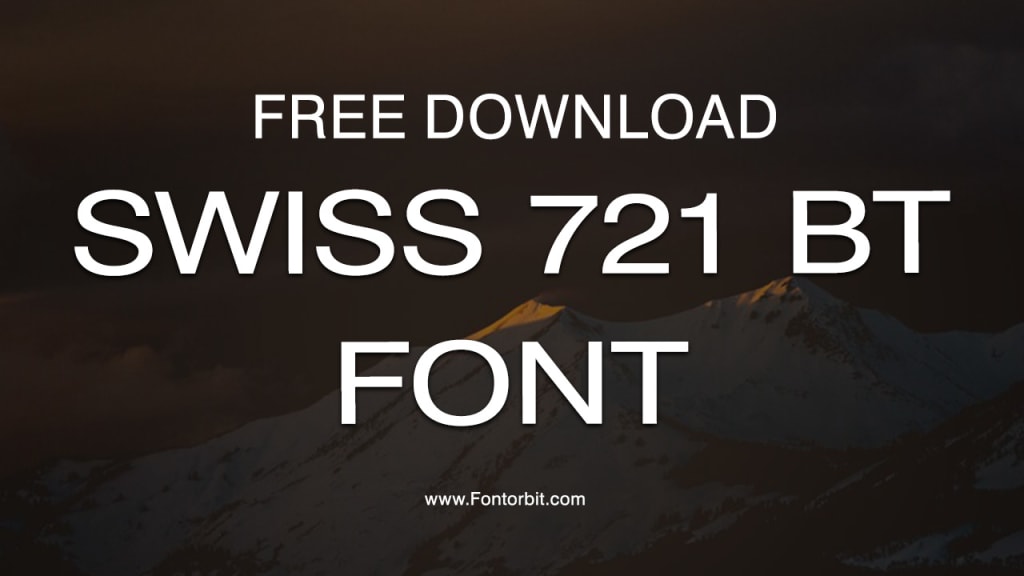
Swiss 721 BT Font: A Timeless Typeface for Modern Design
Swiss 721 BT Font
The Swiss 721 BT font is a renowned typeface celebrated for its versatility, legibility, and modern aesthetic. Originating as a digital version of the Helvetica family, this font has found its place in various industries, from advertising to publishing, due to its clean and professional appearance.
In this article, we explore the history, features, and applications of the Swiss 721 BT font, and why it remains a favorite among designers and typographers.
History of Swiss 721 BT Font
Swiss 721 BT is part of the Bitstream type library, one of the earliest digital type foundries. It was developed as an adaptation of Helvetica, one of the most iconic typefaces in the world.
Helvetica, originally designed by Max Miedinger and Eduard Hoffmann in 1957, became a staple of Swiss design. Bitstream’s version retains the original’s geometric simplicity while optimizing it for digital applications.
Key Features of Swiss 721 BT
Clean Design: Swiss 721 BT features a sans-serif style with uniform line widths and minimal decorative elements, ensuring clarity and readability.
Versatility: It is available in multiple weights and styles, such as regular, bold, italic, and condensed, making it adaptable to various design needs.
Legibility: The font excels in both digital and print formats, maintaining readability across different sizes and resolutions.
Professional Appeal: Its neutral and modern aesthetic makes it suitable for corporate branding, web design, and editorial use.
Applications of Swiss 721 BT Font
Corporate Branding: Companies often use Swiss 721 BT for logos, business cards, and marketing materials due to its professional appearance.
Web Design: Its clarity and adaptability make it a popular choice for websites, ensuring excellent readability on screens.
Editorial Design: Magazines, books, and newspapers utilize the font for both headlines and body text.
Advertising: Its clean and modern look helps deliver messages effectively in print and digital advertisements.
Signage: Swiss 721 BT’s legibility is perfect for public signage and wayfinding systems.
Why Choose Swiss 721 BT?
The Swiss 721 BT font stands out for its timeless appeal and functional design. Designers appreciate its ability to convey professionalism and clarity without overwhelming the viewer.
Its wide range of styles and weights ensures flexibility, allowing it to be tailored to specific projects. Whether you're designing a sleek corporate identity or crafting engaging editorial content, Swiss 721 BT is a reliable choice.
Conclusion
Swiss 721 BT is more than just a font; it’s a design staple that has stood the test of time. With its roots in the iconic Helvetica and its adaptability to modern needs, this font continues to be a go-to option for designers worldwide. Its balance of aesthetic appeal and functional performance ensures its relevance in a variety of design contexts.
FAQs about Swiss 721 BT Font
What is Swiss 721 BT font?
Swiss 721 BT is a sans-serif font developed by Bitstream, inspired by the iconic Helvetica typeface. It is known for its clean and professional design.
What are the key features of Swiss 721 BT?
The font is characterized by its clean design, versatility, legibility, and professional appeal, making it suitable for various applications.
Where can Swiss 721 BT be used?
Swiss 721 BT is ideal for corporate branding, web design, editorial projects, advertising, and signage due to its readability and modern aesthetic.
Is Swiss 721 BT free to use?
Swiss 721 BT is a commercial font, and licensing is required for use. It can be purchased from font distributors or included in design software packages.
How does Swiss 721 BT differ from Helvetica?
While Swiss 721 BT retains the geometric simplicity of Helvetica, it is optimized for digital use, offering a wider range of styles and weights.
Can Swiss 721 BT be used in web design?
Yes, Swiss 721 BT is well-suited for web design due to its readability and adaptability to various screen sizes and resolutions.
What makes Swiss 721 BT a timeless font?
Its neutral aesthetic, functional design, and versatility ensure that Swiss 721 BT remains relevant across different design trends and applications.